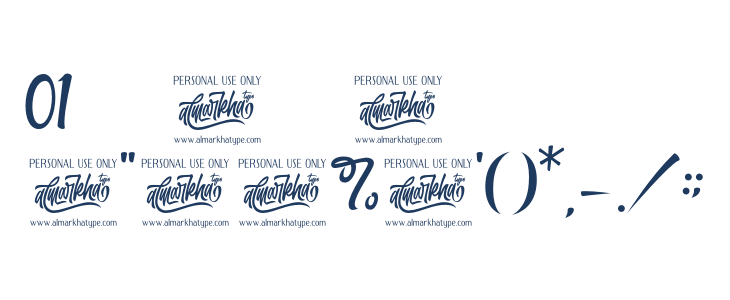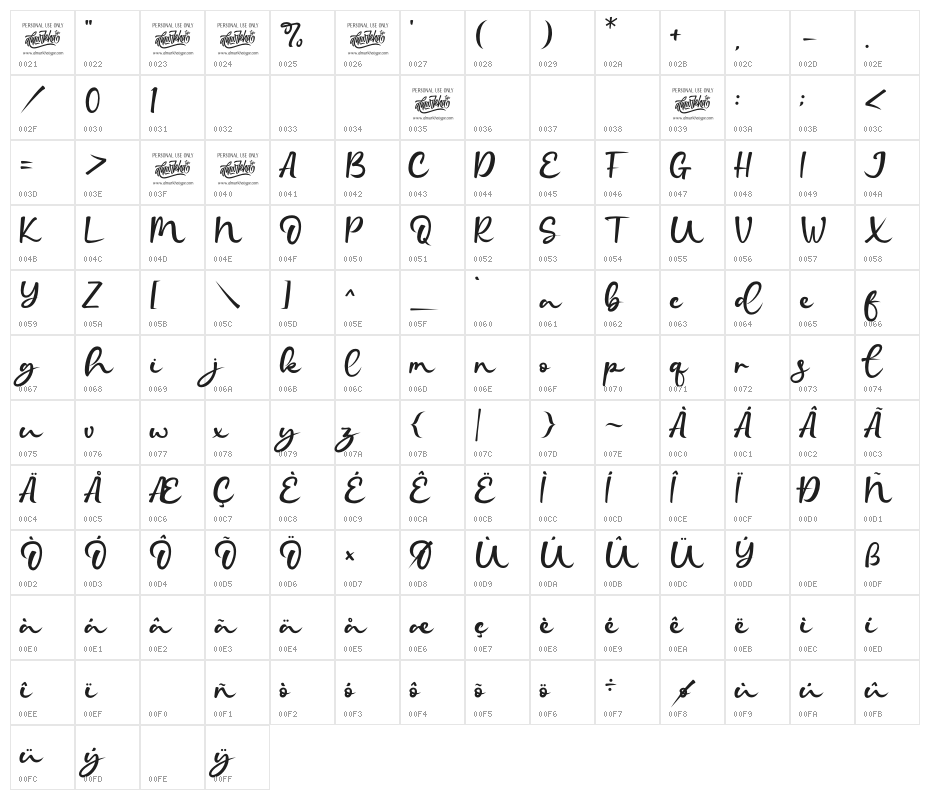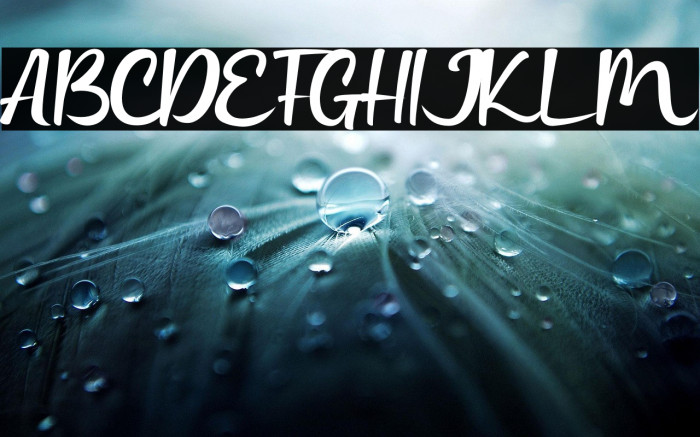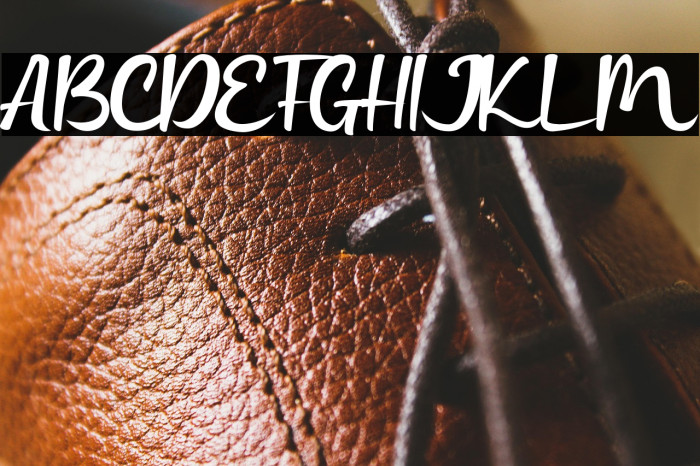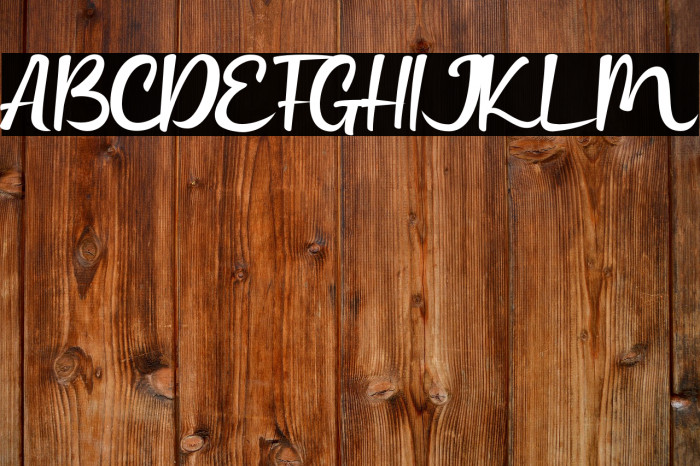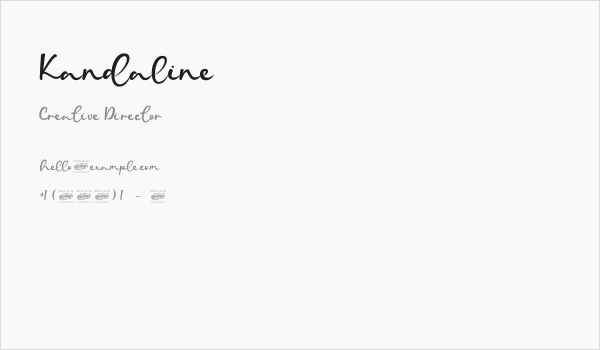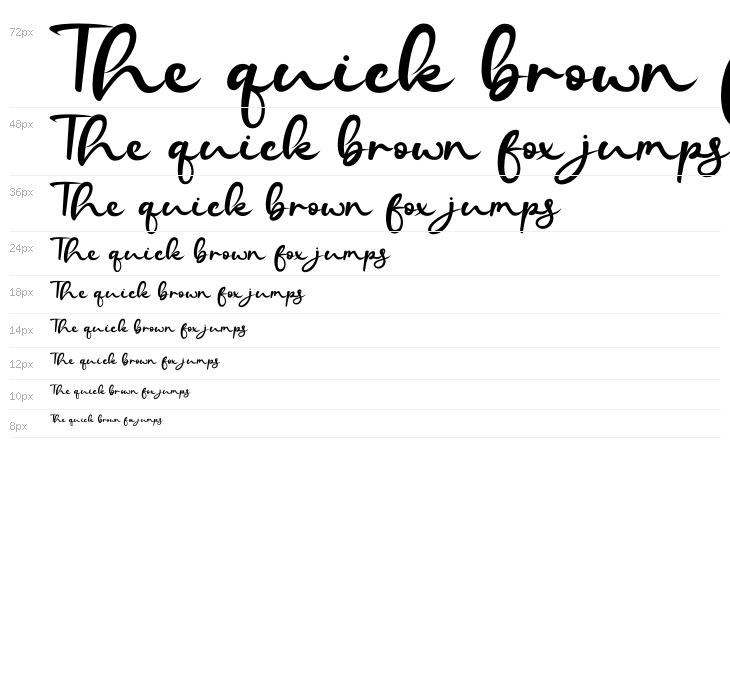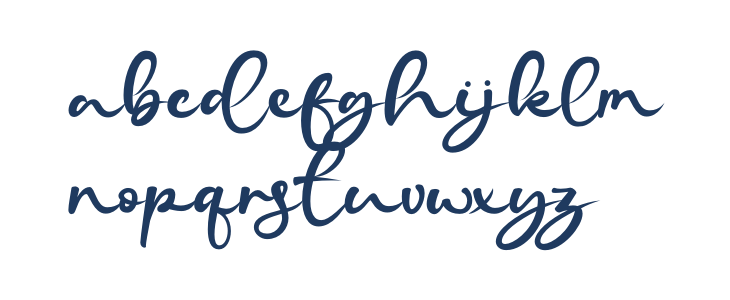
Kandaline Font
Kandaline Description
This font features a dynamic and flowing script style, characterized by its smooth, cursive strokes and elegant curves. The uppercase letters exhibit a bold and confident presence, while the lowercase letters maintain a harmonious and fluid connection. The numerals are consistent with the overall style, offering a playful yet sophisticated look. Special characters are thoughtfully designed to complement the script's aesthetic, making it versatile for various applications. The font's overall appearance is both modern and artistic, suitable for creative and expressive projects.